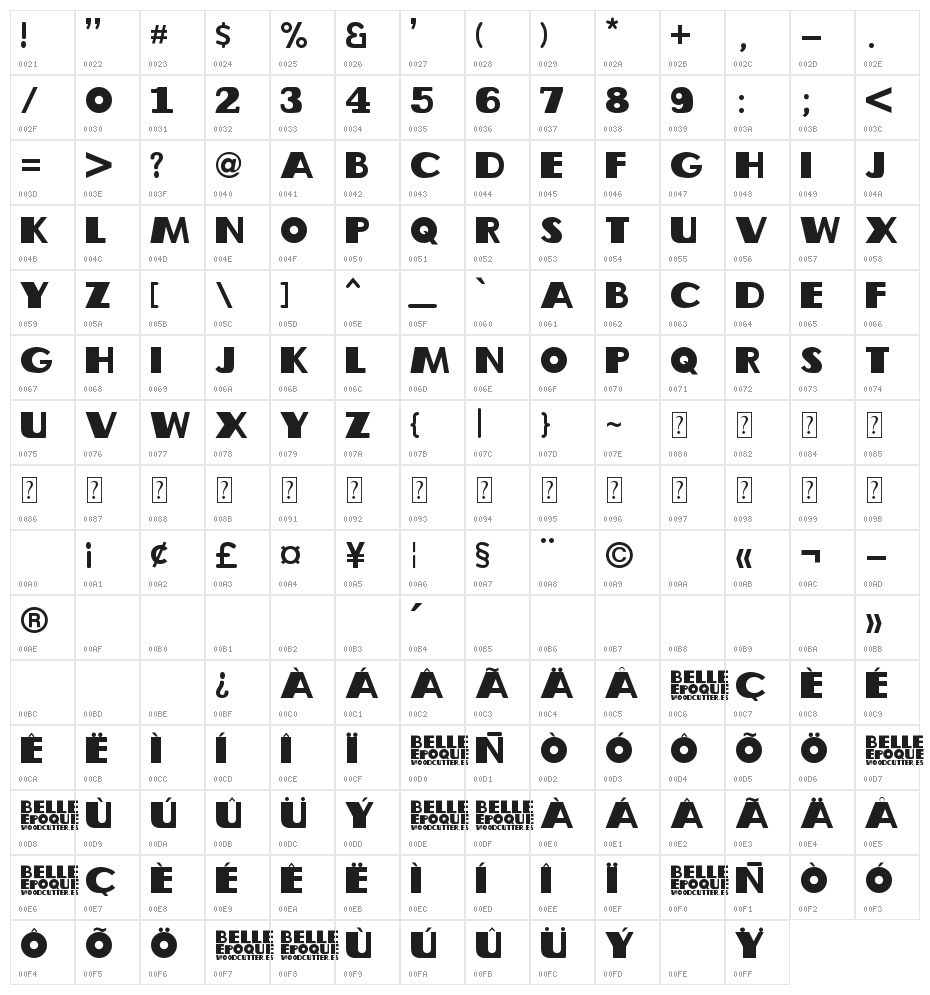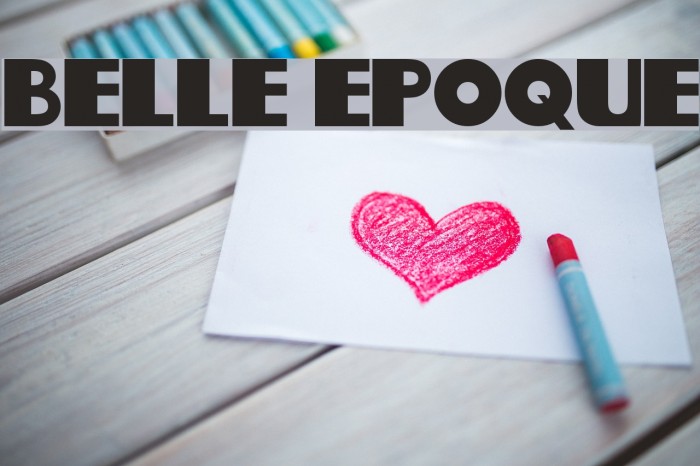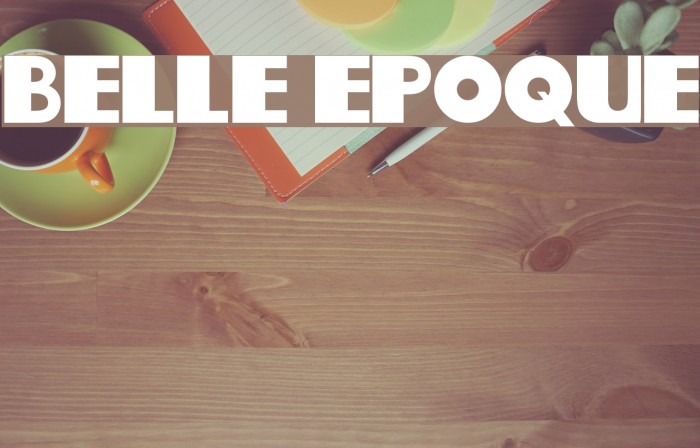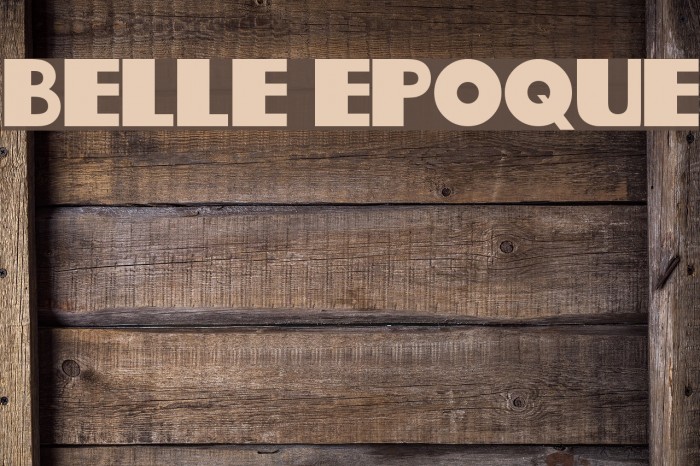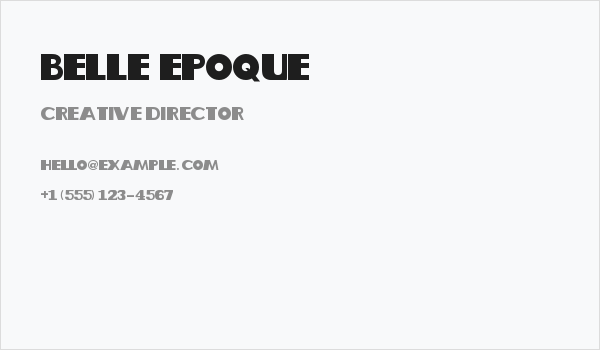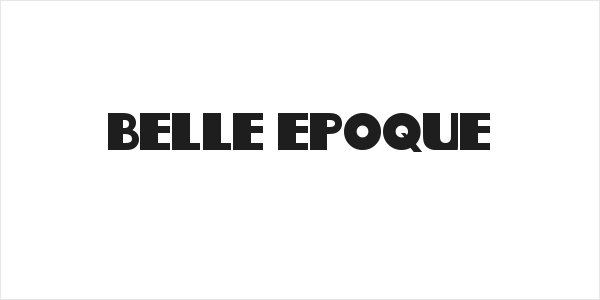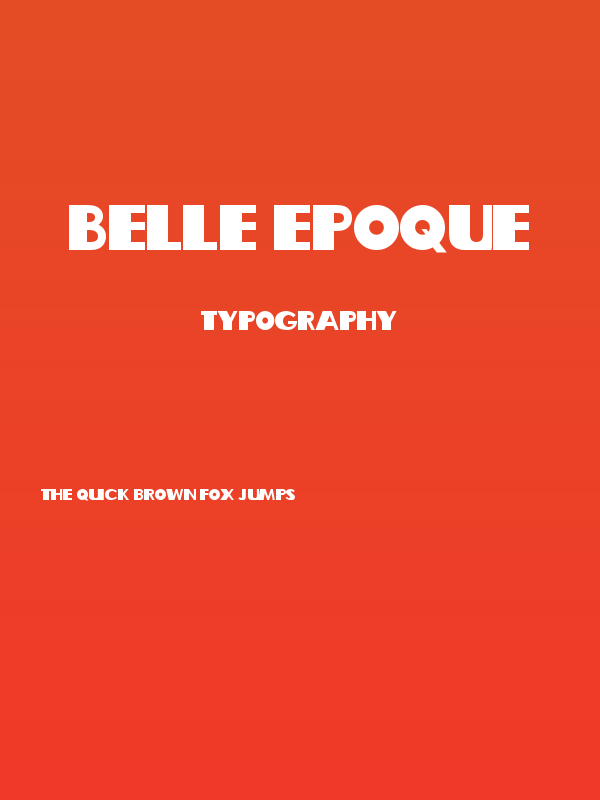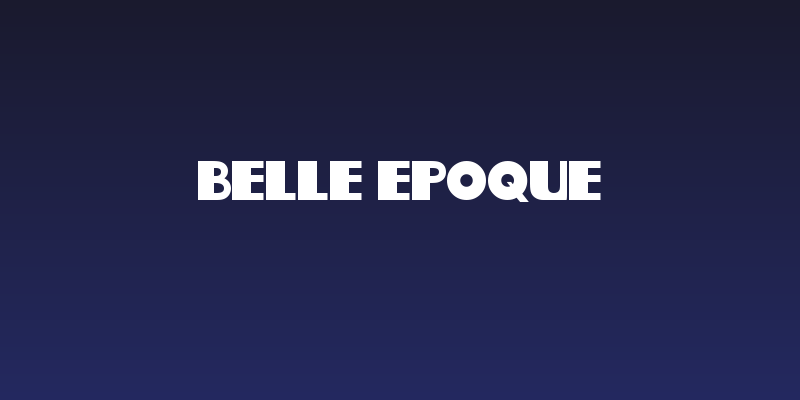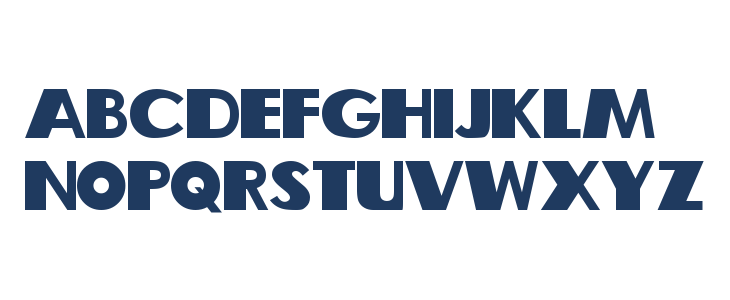
Belle Epoque Font
Belle Epoque Description
This font features a bold and striking design with thick, uniform strokes that create a strong visual impact. The characters are well-defined with a slight geometric influence, providing a modern yet timeless appeal. The uppercase letters are particularly prominent, making them ideal for attention-grabbing headlines. The numerals and special characters maintain the same boldness, ensuring consistency across different uses. The overall style is clean and powerful, suitable for projects that require a commanding presence.
| Proposed Projects | Ideal for branding, posters, headlines, and any design requiring a bold statement. |